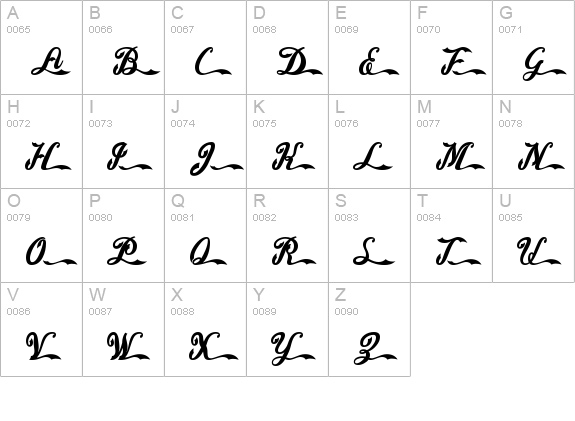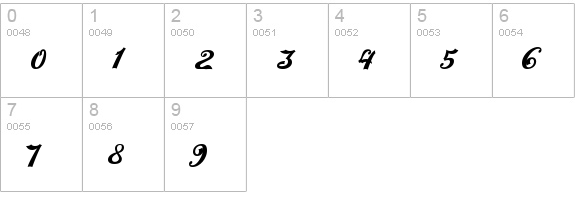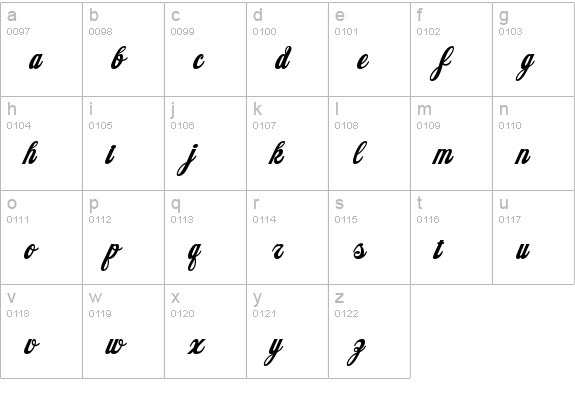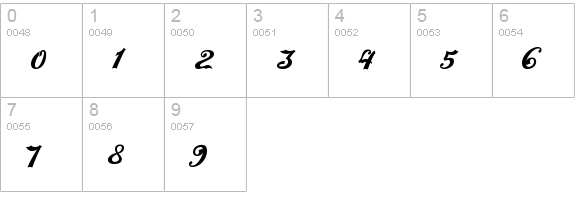
American Pop One font is a stylish and versatile typeface that exudes a sense of nostalgia and retro charm. With its bold, rounded letterforms and playful aesthetic, this font is perfect for adding a touch of Americana to your designs. Whether you're working on a poster, logo, or branding project, American Pop One font will bring a sense of fun and personality to your work. Best of all, American Pop One font is available for free download at FontsMarket.com. Simply head to the website and grab this delightful typeface to enhance your creative projects. Don't miss out on the opportunity to add a touch of vintage flair to your designs with American Pop One font, now easily accessible for free!